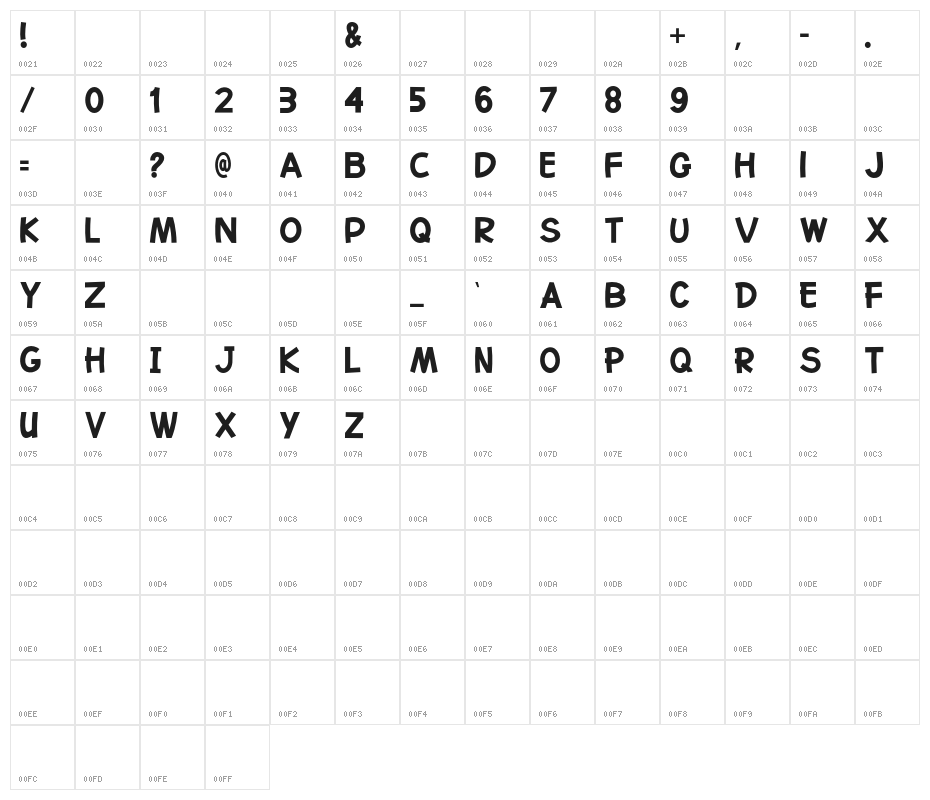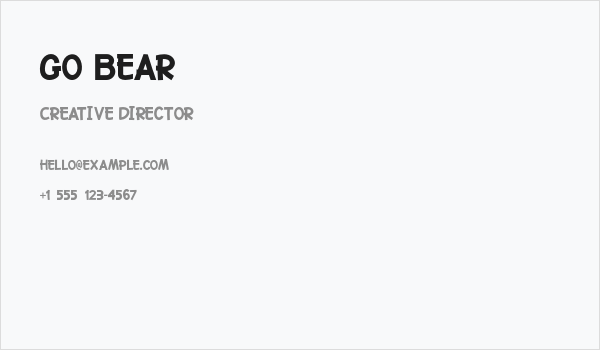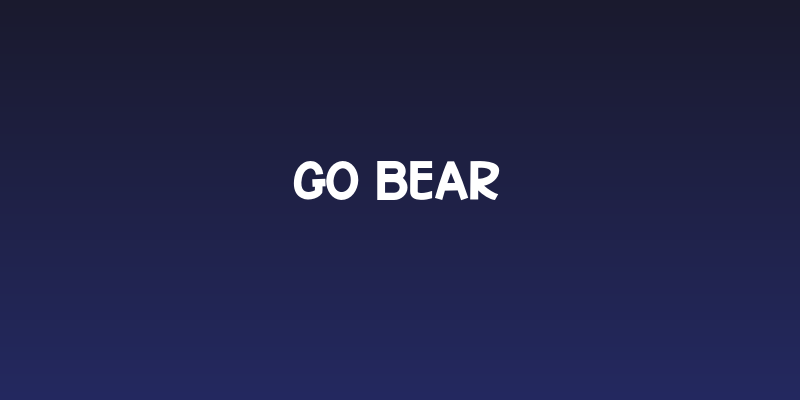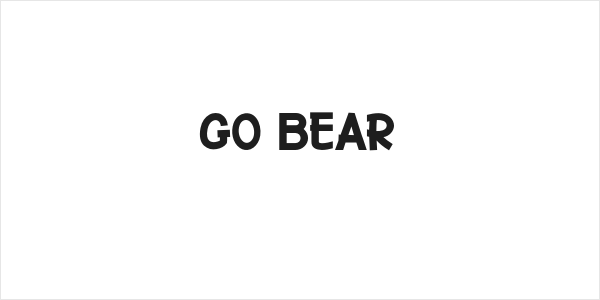
Go Bear Font
Go Bear Description
This font features bold, playful characters with a slightly irregular and whimsical style. The letters are thick and rounded, giving a friendly and approachable feel. The uppercase and lowercase letters maintain a consistent weight, while the numbers and special characters are designed to match the overall playful aesthetic. The font's boldness and unique character shapes make it stand out, making it suitable for eye-catching designs. The spacing between characters is tight, which enhances the compact and bold appearance. This font is ideal for projects that require a fun and engaging look.
| Proposed Projects | Ideal for children's books, playful branding, posters, and casual invitations. |